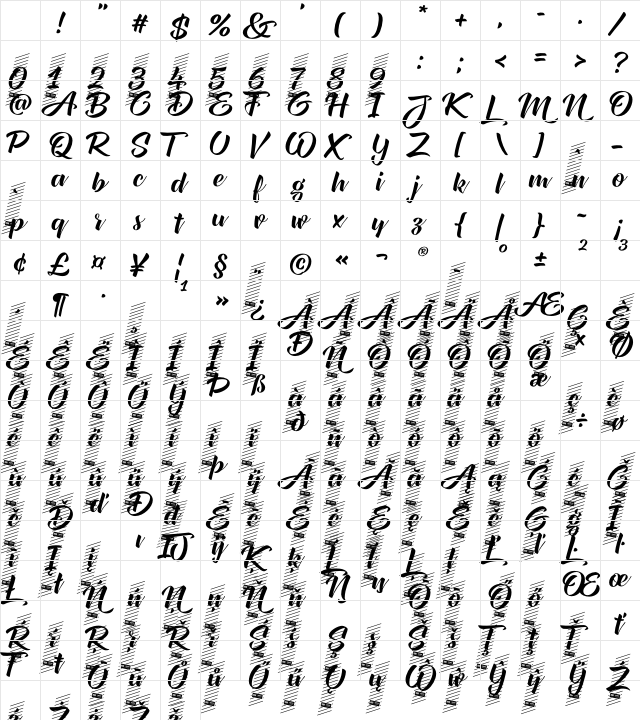
Complete XXII CoolScript - DEMO Medium glyph index. Displaying only characters natively supported by XXII CoolScript - DEMO Medium font.
XXII CoolScript - DEMO flows with the natural rhythm of handwritten lettering, making it ideal for designs that call for warmth and personal expression.
Font Pairing: Combine XXII CoolScript - DEMO with a simple geometric sans for maximum contrast - the tension between flowing curves and clean structure is a classic typographic pairing.
Pro Tip: Use XXII CoolScript - DEMO for short runs of text - names, titles, or taglines. Extended body copy in script faces tires the eye quickly.